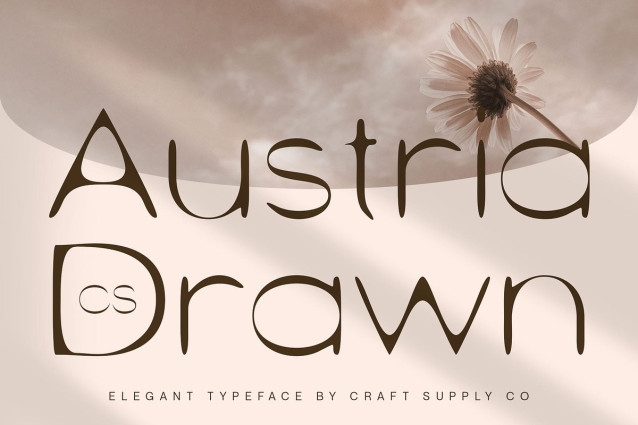
CS Austria Drawn Font
CS Austria Drawn Font is a modern sans serif font that features a sleek and refined design. Its clean, minimalist letterforms reflect contemporary aesthetics, while subtle curves and proportions add an elegant, graceful feel. This font strikes a perfect balance between simplicity and sophistication.
Drawn Effect for Unique Artistic Expression The addition of a drawn effect brings a soft, handcrafted texture to the crisp geometry of the font. This artistic detail introduces warmth and personality, setting this minimalist font apart from conventional minimalist typefaces. It invites visual interest without overpowering the clean structure.
Refined Presence with Lasting Impact This refined font blends modern simplicity with artistic detail, offering a harmonious tone that feels both contemporary and personal. It’s a perfect fit for design projects that require a calm, graceful presence with a hint of individuality. The understated charm of its form makes it a reliable choice for conveying luxury without excess.
Perfect for Luxury Branding, Editorials, and Elegant Visual Design From high-end branding and fashion editorials to boutique packaging and elegant web interfaces, this stylish font provides versatility and impact. It is especially suitable for visual identities that seek to appear polished, thoughtful, and creatively refined—whether in print or digital design.